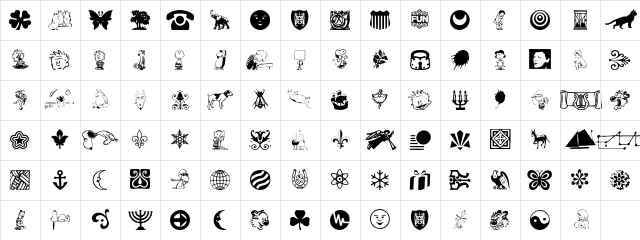
DavysOtherDingbats Regular
Design Context for DavysOtherDingbats
DavysOtherDingbats is a composed and adaptable typeface that performs quietly and consistently across a wide range of design contexts.